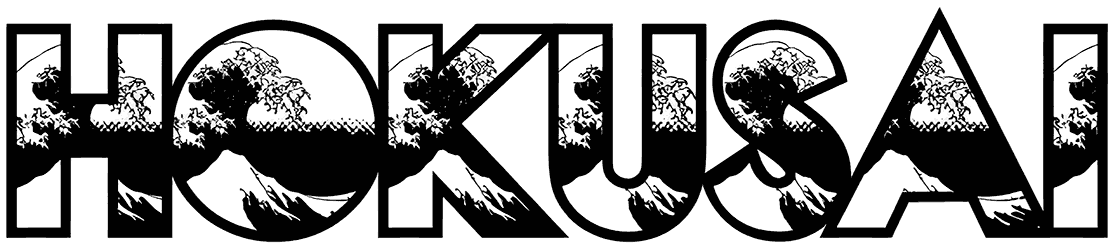
Hokusai Font
When you want to create a capturing and memorable design, using natural elements can be inviting, and this Japanese font has such a style. Hokusai font with wave patterns is an all-caps item that can create a cool title for your flyer or any design that you want. There is no offer for lowercase letters, numbers, or punctuation marks, but test this font for your upcoming design and reveal your creativity.
Three layered fonts.